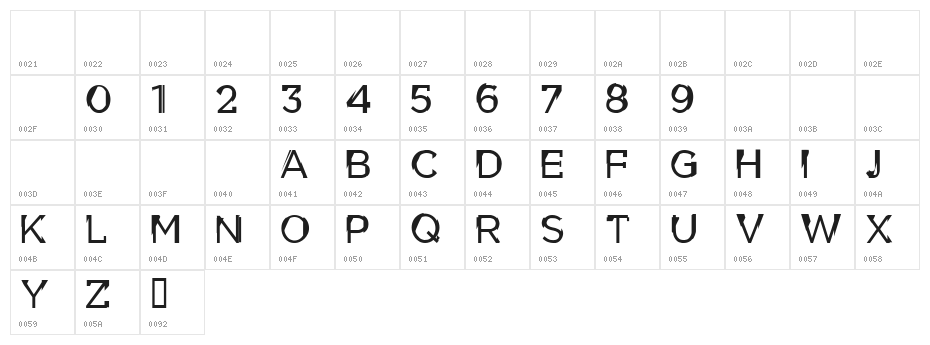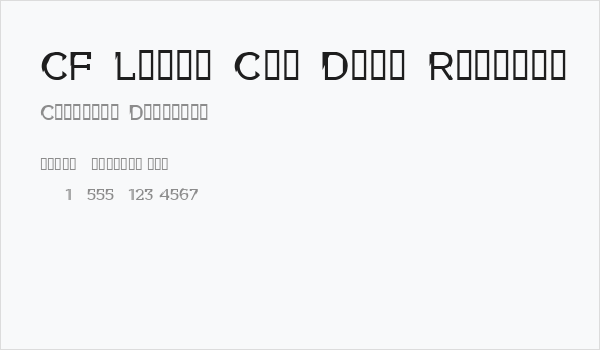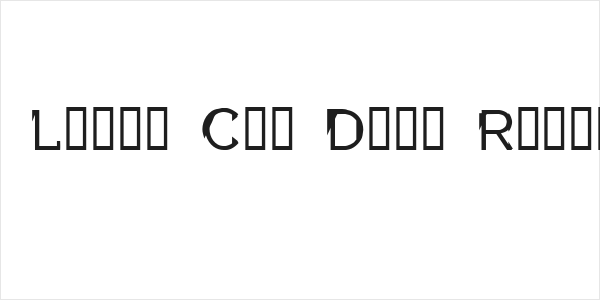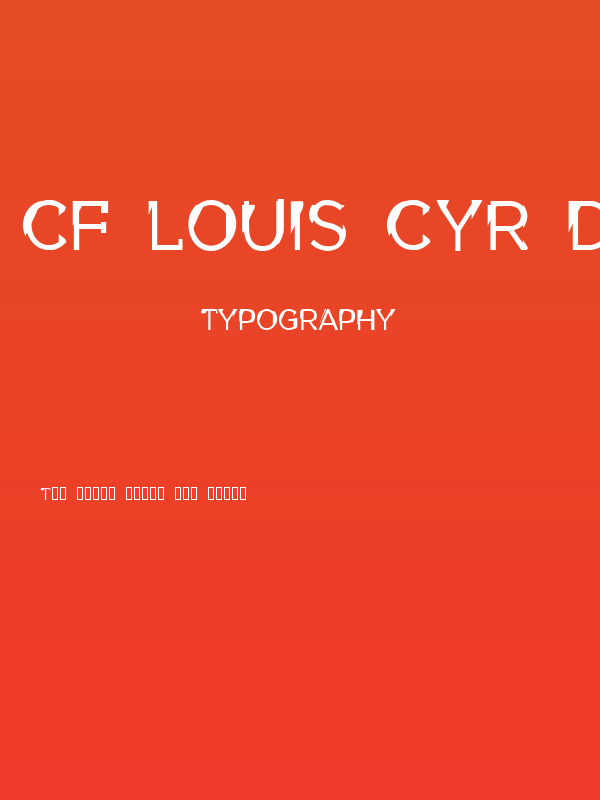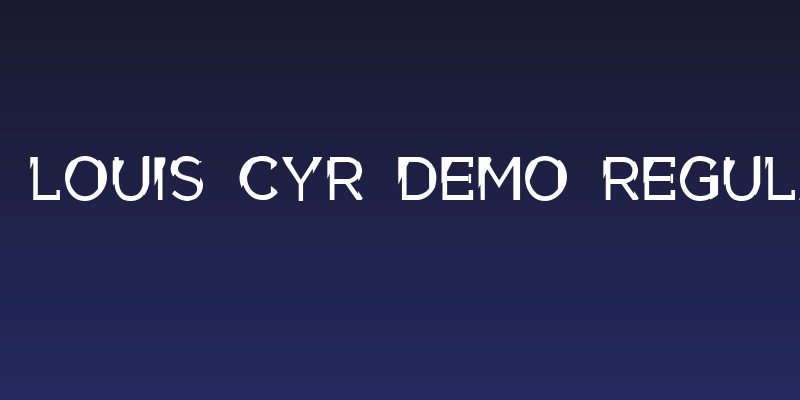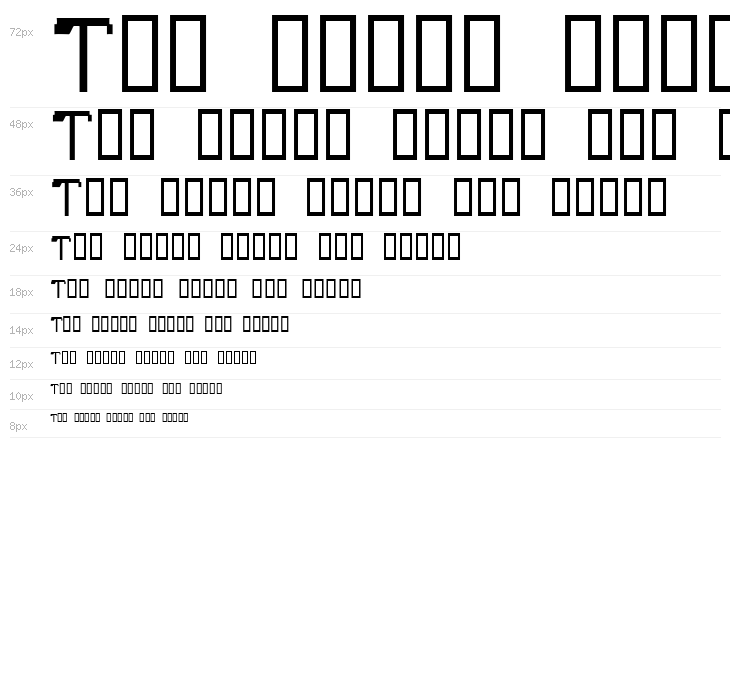
CF Louis Cyr Demo Regular Font
CF Louis Cyr Demo Regular Description
This font features a bold and striking design with a modern twist. The uppercase letters are characterized by strong geometric shapes and sharp angles, creating a sense of power and dynamism. The lowercase letters maintain the same boldness, ensuring consistency throughout the typeface. The numbers are equally robust, with a unique flair that makes them stand out. The font's overall appearance is both contemporary and edgy, making it suitable for projects that require a bold statement. Its distinctive style is perfect for capturing attention and conveying a sense of strength and modernity.
| Proposed Projects | Ideal for branding, poster design, and headlines that require a strong visual impact. |